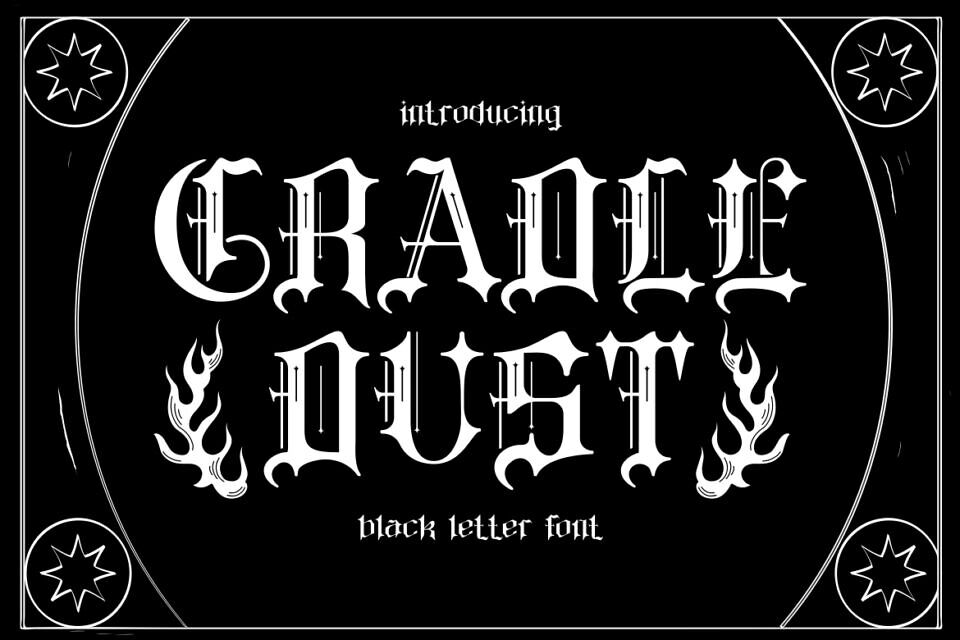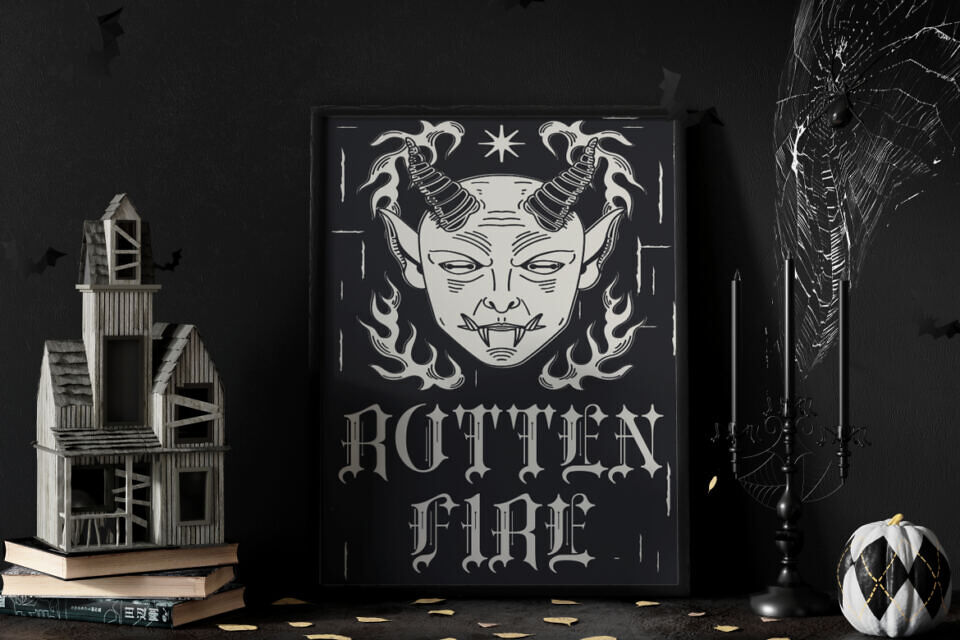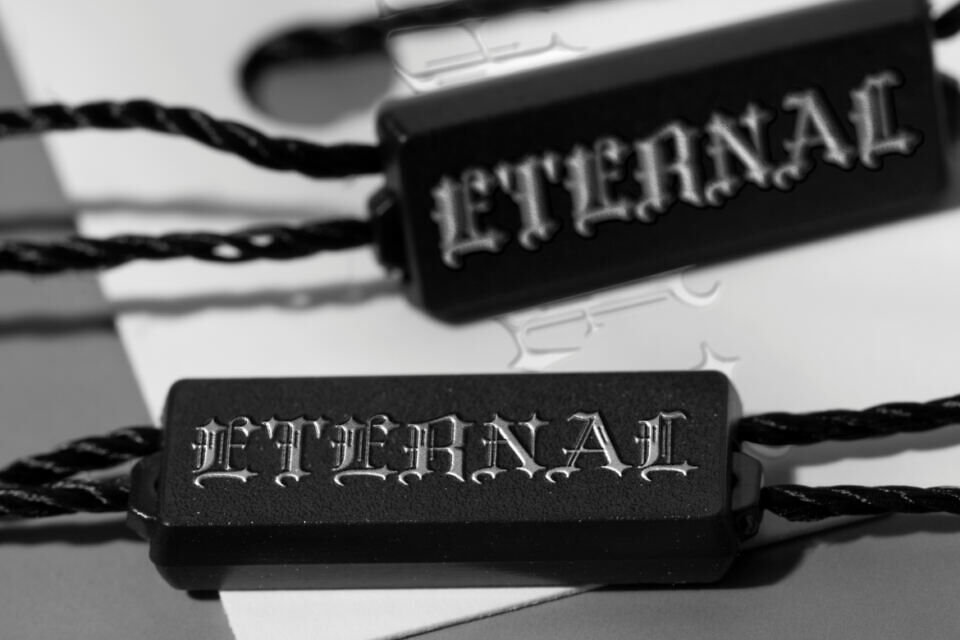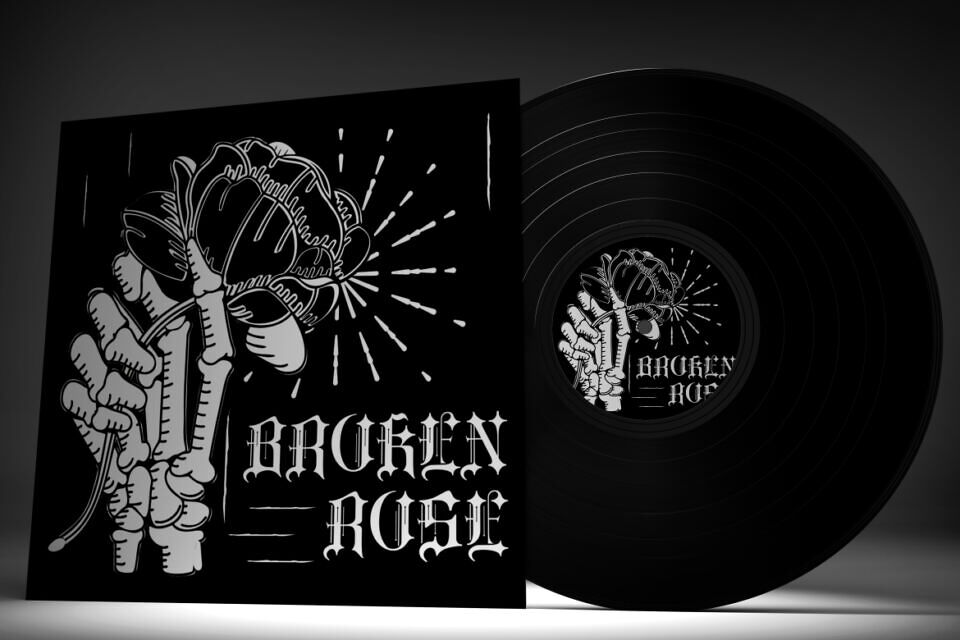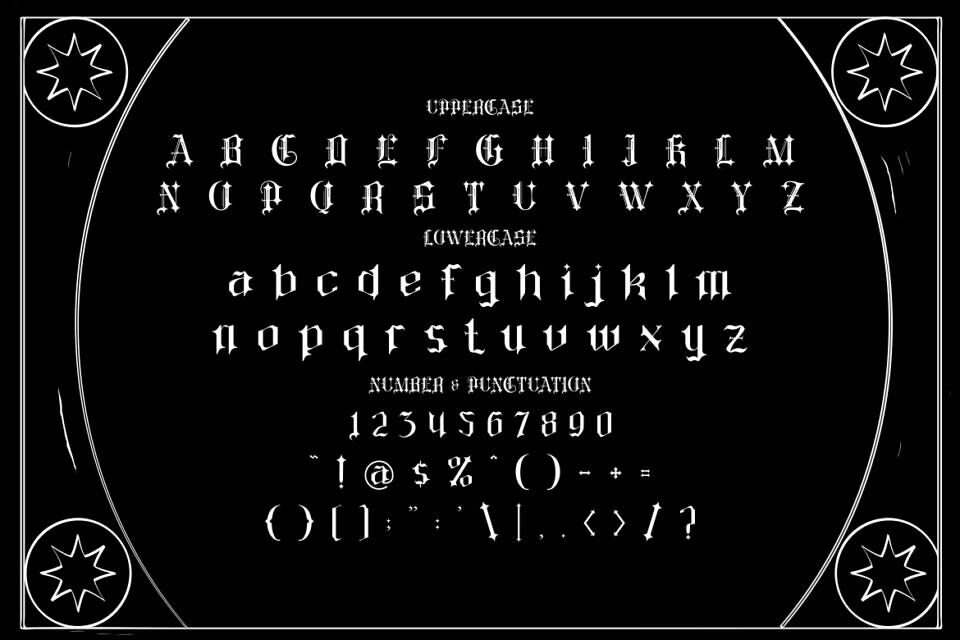
Cradle Dust Font
Cradle Dust Black Letter Font is a gothic-inspired typeface designed with dramatic strokes, sharp edges, and intricate details that embody the essence of blackletter typography. The font combines the traditional elegance of medieval calligraphy with a modern metal-inspired aesthetic, creating a perfect balance between historic charm and contemporary edge.
Each character is crafted with pointed serifs and ornamental touches, making it stand out in logos, posters, tattoos, and dark-themed branding. Its bold presence ensures that every word carries intensity and attitude, ideal for projects that demand attention.